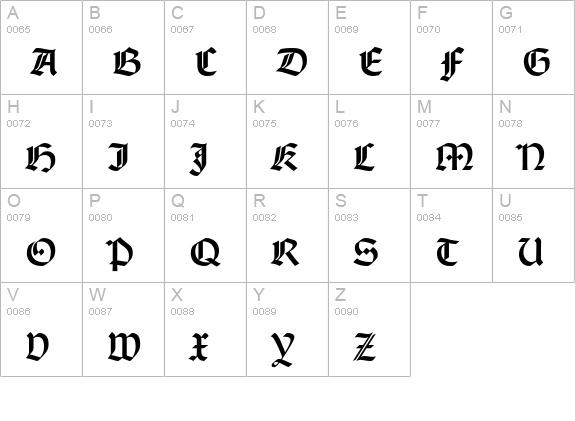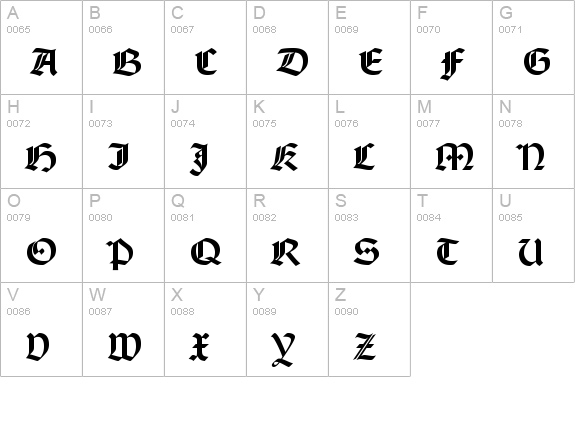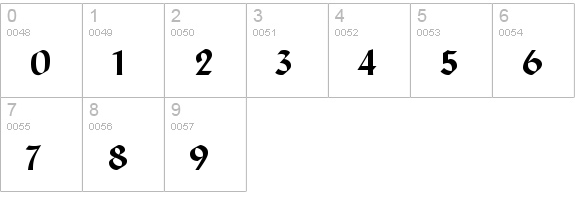
San Marco Dfr Font Details
San Marco Dfr is a captivating font that effortlessly blends elegance with sophistication. This versatile typeface exudes a timeless appeal, making it perfect for a wide range of design projects. With its delicate strokes and refined curves, San Marco Dfr adds a touch of grace and refinement to any text. This font is not only visually striking but also highly legible, ensuring that your message is conveyed with utmost clarity. Its well-balanced letterforms create a harmonious flow, enhancing the readability and overall aesthetic of your designs. What sets San Marco Dfr apart is its accessibility. It is freely available to download at FontsMarket.com, allowing designers and enthusiasts to effortlessly incorporate this stunning font into their projects. This generous offering allows for creativity to flourish without any constraints, empowering users to create captivating designs without any limitations. Whether you are working on branding, packaging, invitations, or any other design project, San Marco Dfr is the ideal font choice. Its versatility and timeless appeal make it suitable for both print and digital mediums. From elegant headlines to stylish body text, this font will elevate your designs to new heights. Experience the beauty and versatility of San Marco Dfr, and let your creativity soar. Download it for free at FontsMarket.com today and unlock a world of possibilities for your next design endeavor.